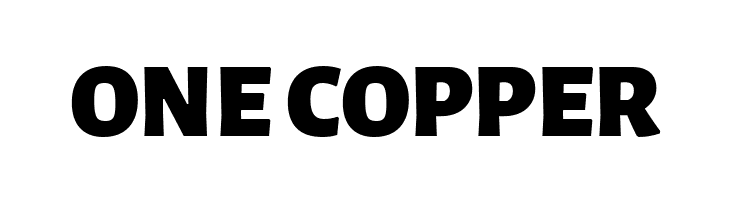
• Aleena Groovy FREE
A bold, retro-inspired font with playful, decorative elements.
• aleera
A bold, expressive handwritten font with fluid strokes and playful curves.
• Alef Bold
A bold, modern sans-serif font with consistent stroke width and normal spacing.
• Alef Regular
A clean, modern sans-serif typeface with balanced spacing and consistent stroke width.
• Alefbaa
A bold, geometric font ideal for modern headlines and logos.
• AleFont
• Alegant Script
An elegant, flowing cursive script with intricate loops and smooth connections.
• Alégre Sans
A bold, modern sans-serif font with strong vertical lines and uniform strokes.
• Alegre Sans Regular
A bold, modern sans-serif font with a condensed and professional style.
• Alegreya
A dynamic serif typeface with a blend of traditional elegance and modern style.
• Alegreya Black
A bold serif font with strong contrast and classic appeal.
• Alegreya Black Italic
A bold, italic serif font with strong strokes and a dynamic presence.
• Alegreya Bold
A bold, classic serif font with strong serifs and elegant curves.
• Alegreya Bold Italic
A bold, italic serif font with dynamic and elegant letterforms.
• Alegreya ExtraBold
A bold serif typeface with dynamic strokes and elegant curvature.